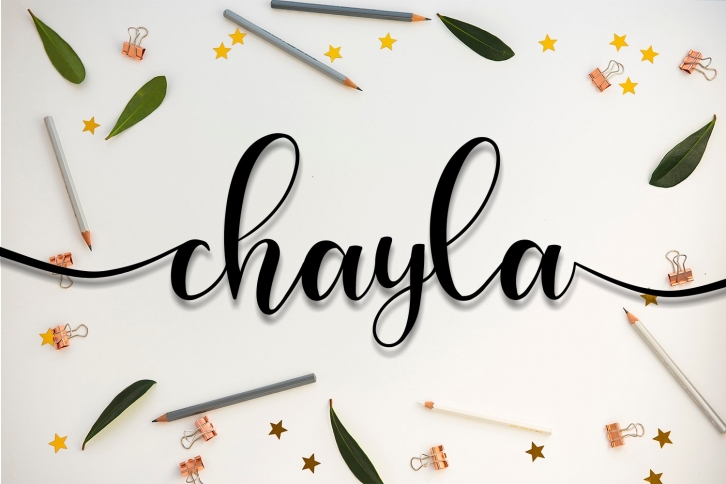
chayla is a gorgeous font that was realeased on May 18, 2020. The font can be used in many style contexts and design environments. Perfect for invitations, magazines, websites, logos, and more! It was designed by niyyo and the file size is 21.33 MB. Thanks for checking out this font!